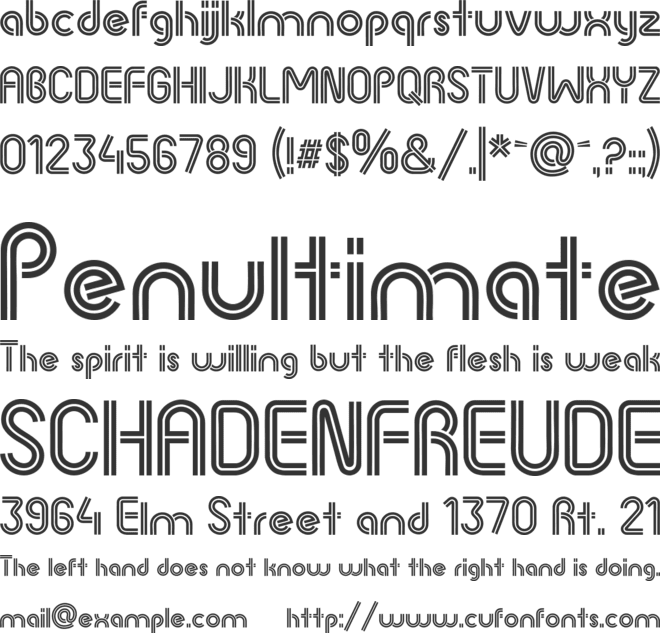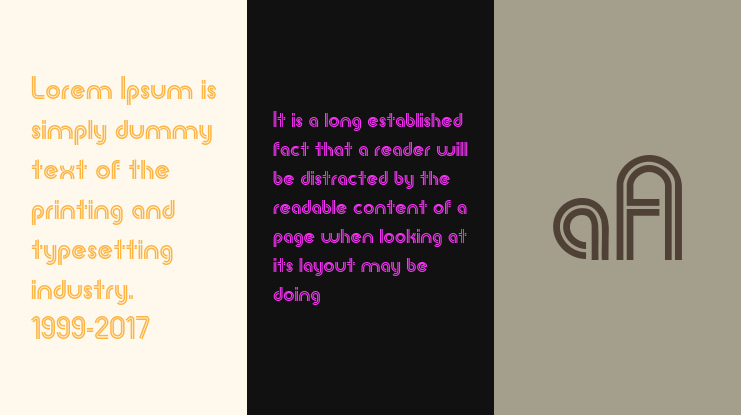
This design started as custom type for a logo design. There were only a handful of letters created. I took the time to make the entire alphabet. Then, though this font is only good for display, made a full typeface. It’s very retro.